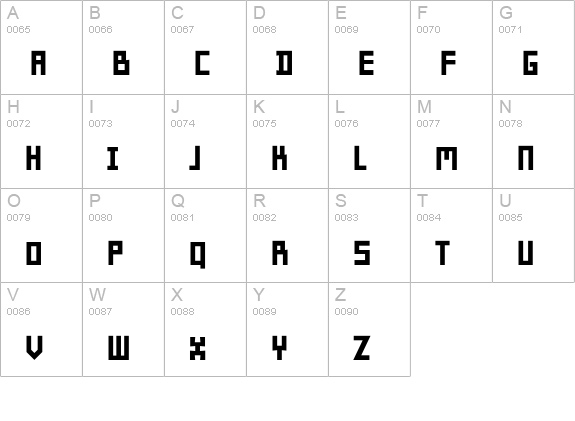
Minimum-ANoir font exudes an aura of mystery and sophistication, making it a perfect choice for projects that require a touch of elegance and intrigue. Its sleek and modern design is sure to captivate the attention of viewers and add a sense of uniqueness to any design. The sharp angles and minimalistic aesthetic of Minimum-ANoir font lend a bold and edgy look to any text, making it ideal for a wide range of creative projects. Best of all, Minimum-ANoir font is available for free download at FontsMarket.com, allowing designers and creators to enhance their work with this stylish typeface without any additional cost. Whether you're working on a poster, logo, website, or any other design project, Minimum-ANoir font is a versatile and eye-catching choice that will elevate your work to the next level. Download it today and see the impact it can make on your designs!